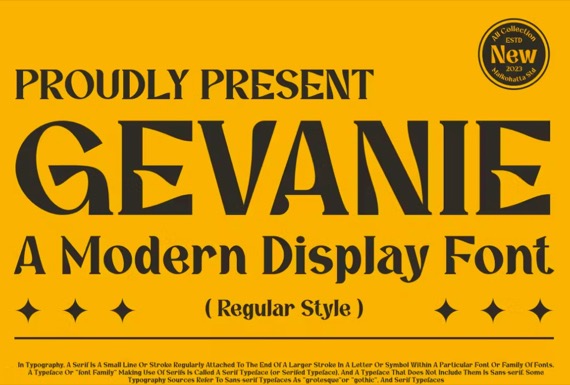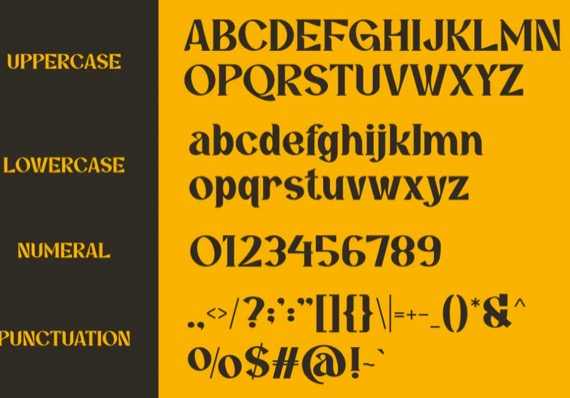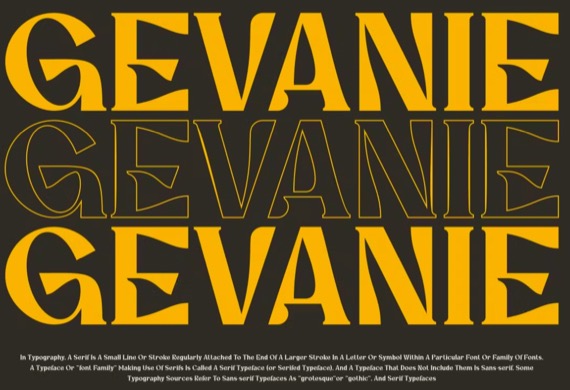
GEVANIE – a luxury and Modern Font, is a bold and authentic display font. The font is suitable for any branding project such as logo, Template design, branding company, etc. She is exceptional in a wide range of contexts
Gevanie Display Font